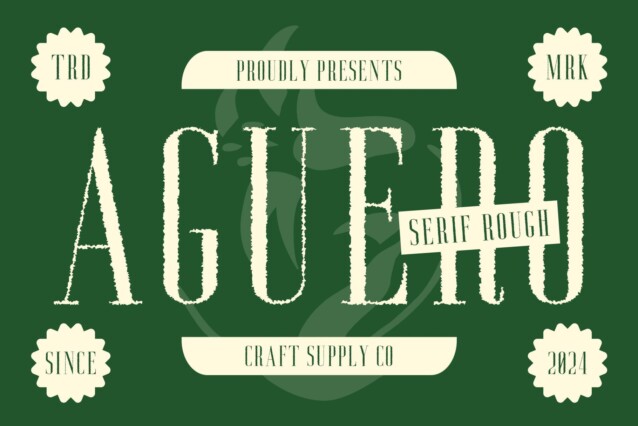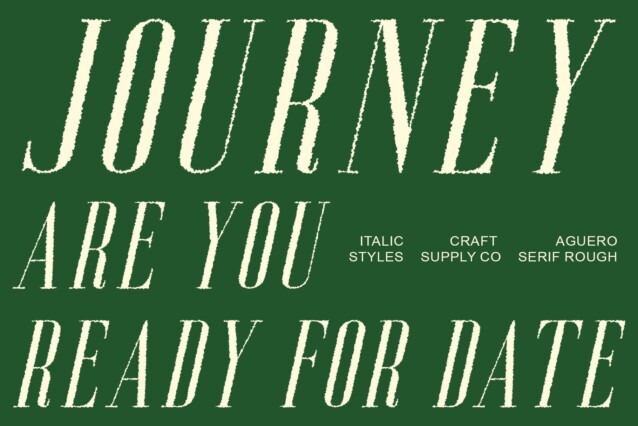
Aguero Serif Rough Font
Aguero Serif Rough Font: Vintage Elegance in High Contrast. Aguero Serif Rough combines the timeless allure of vintage typography with modern design elements. Its high contrast and condensed form exude elegance reminiscent of classic serif fonts.
Distinctive Rough Texture
The rough texture of This font adds character and depth to its design, evoking a nostalgic feel of aged print materials. Each letter carries a unique charm, enhancing its vintage appeal.